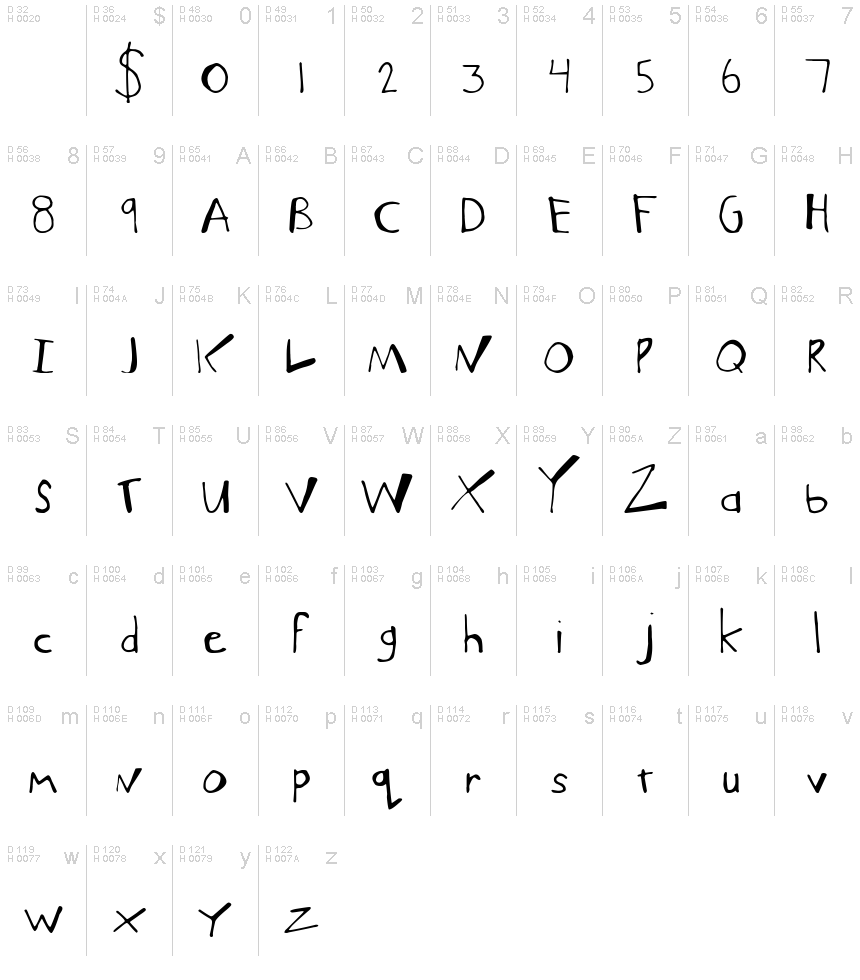
MuchFunky
Much Funky is a captivating handwritten font designed by Xerographer Fonts' Max Infeld. Its distinct personality shines through in the bold, fluid strokes and whimsical, irregular letter forms.
This font exudes a playful, expressive quality, making it an ideal choice for a wide range of creative endeavors, from branding and packaging to editorial design and digital art. The organic, hand-drawn aesthetic breathes life into any project, lending a sense of authenticity and charm.
Much Funky's versatility allows it to effortlessly transition between casual, fun-loving contexts and more sophisticated, refined applications.